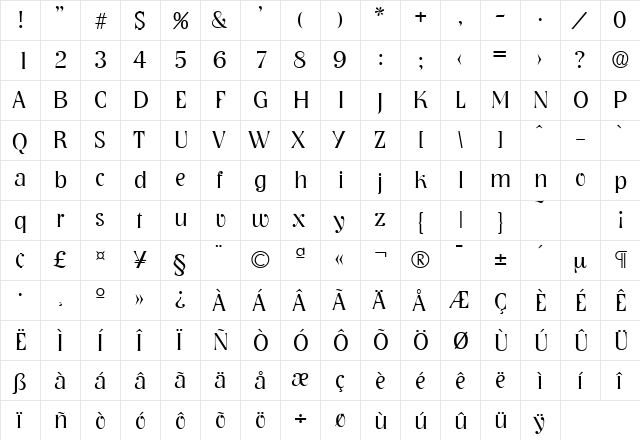
Nashville-Serial-Light Regular
Design Context for Nashville-Serial-Light Typeface
Nashville-Serial-Light offers clean, dependable letterforms without strong stylistic allegiance, making it a practical choice for designers who need flexibility. Its slender proportions lend an understated elegance to any composition.
Pro Tip: Use Nashville-Serial-Light in both headline and body roles to test its range before committing to a single application.